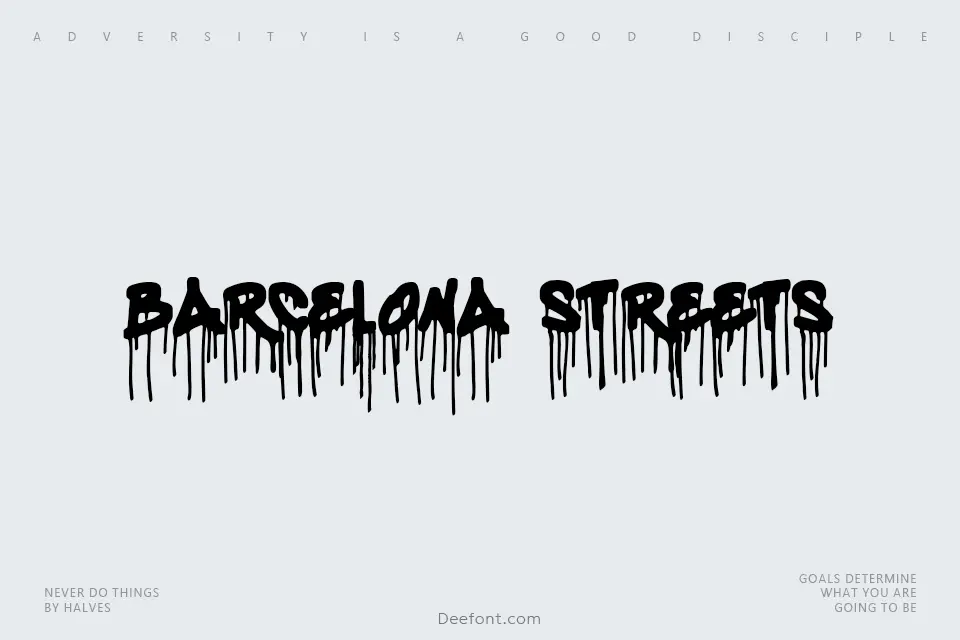
Barcelona Streets Font
Barcelona Streets is a vibrant and expressive graffiti-inspired script font designed to bring urban energy and authentic street style to your creative projects. With its bold, flowing letterforms and dynamic personality, this modern display font captures the essence of Barcelona’s vibrant artistic culture, making it perfect for posters, branding, social media graphics, and eye-catching headlines that demand attention.
Designed by:Jordi Manero Pascual (Woodcutter)Website